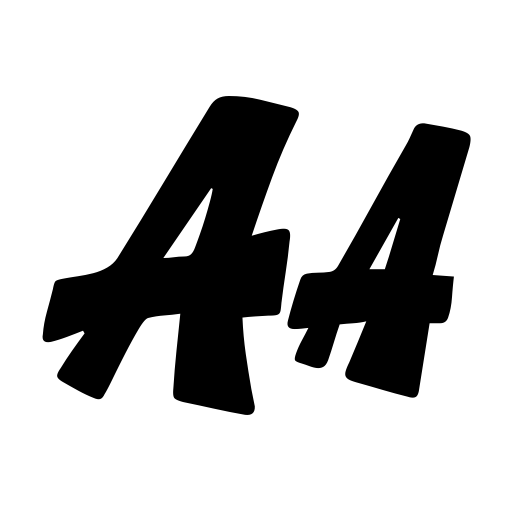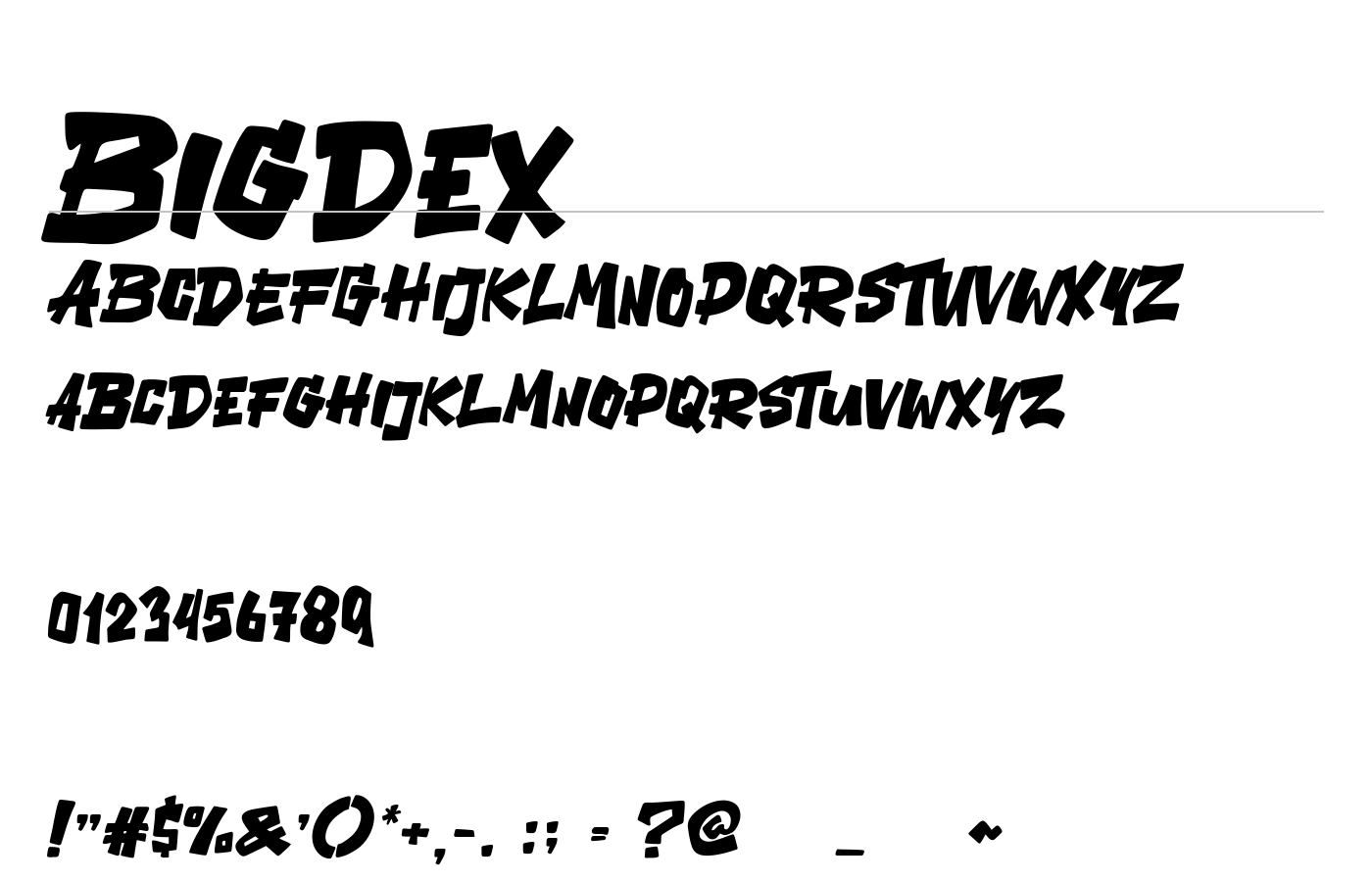
Bigdex is a bold, playful sans serif font with a casual, hand-drawn feel. Its heavy weight, slightly condensed width, and irregular angles give it energetic personality, making it great for fun, dynamic branding, posters, and headlines that need a standout, informal vibe. This font works well where a lively and approachable tone is desired, especially in creative or youthful designs.
Bigdex Font
About Bigdex Font